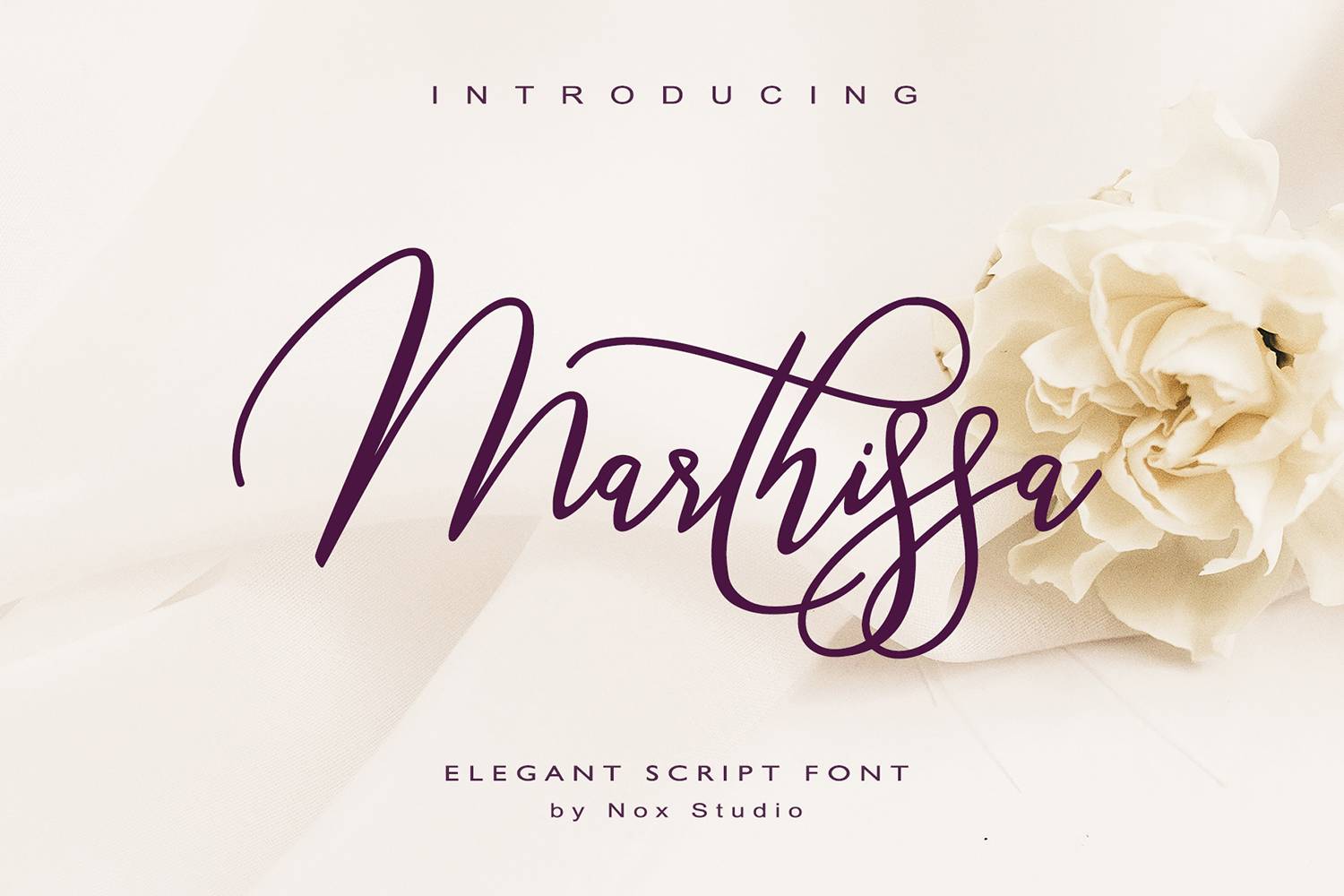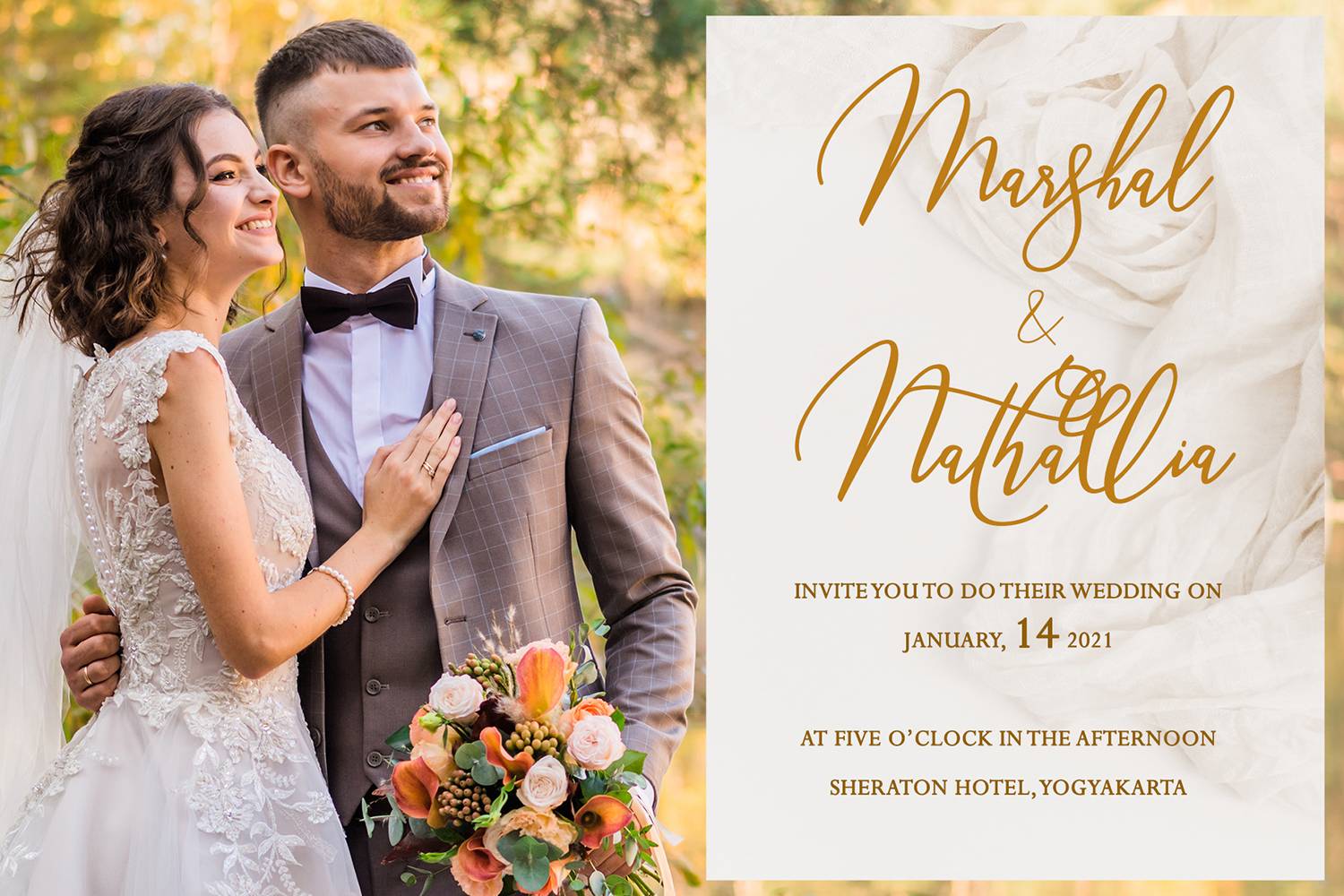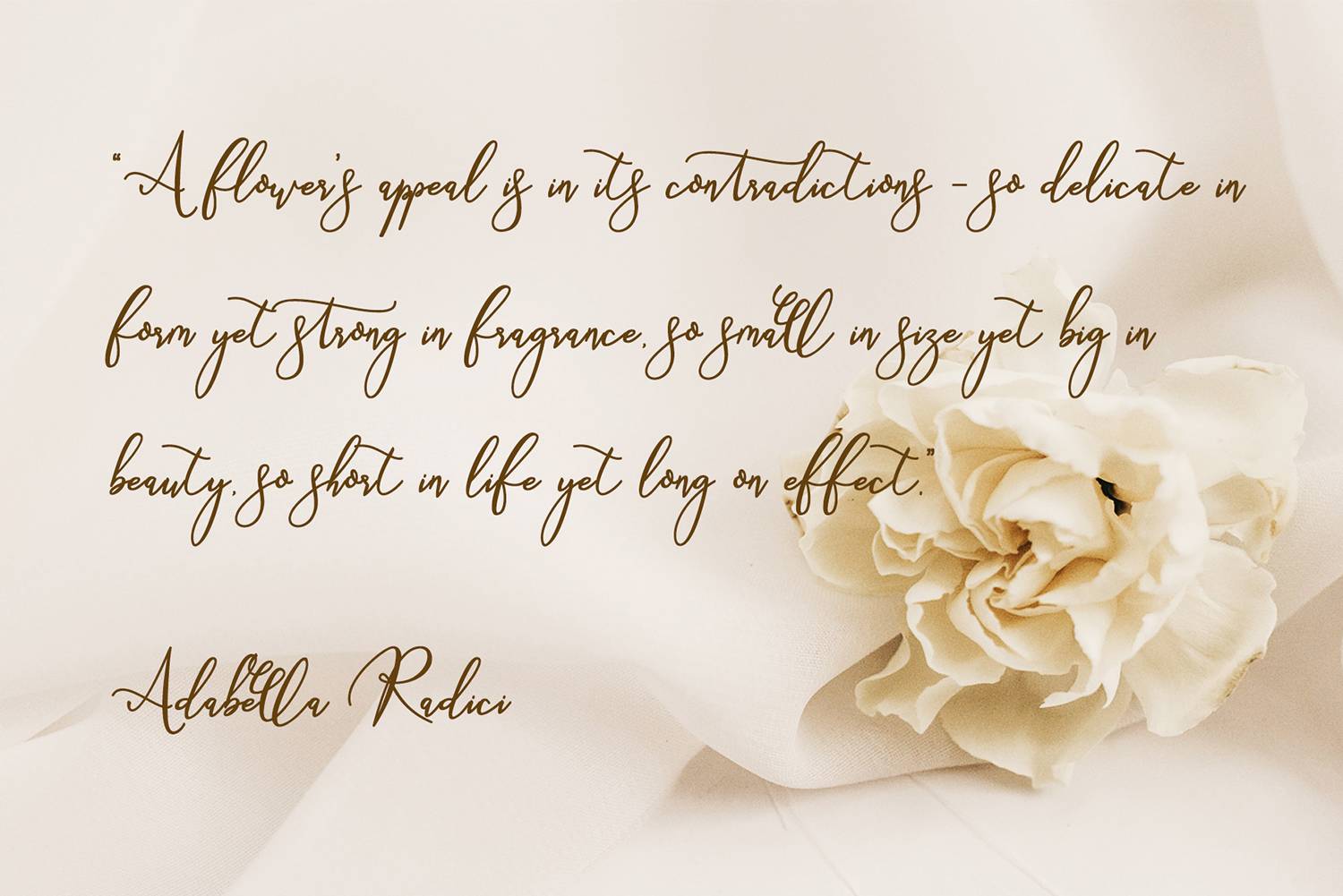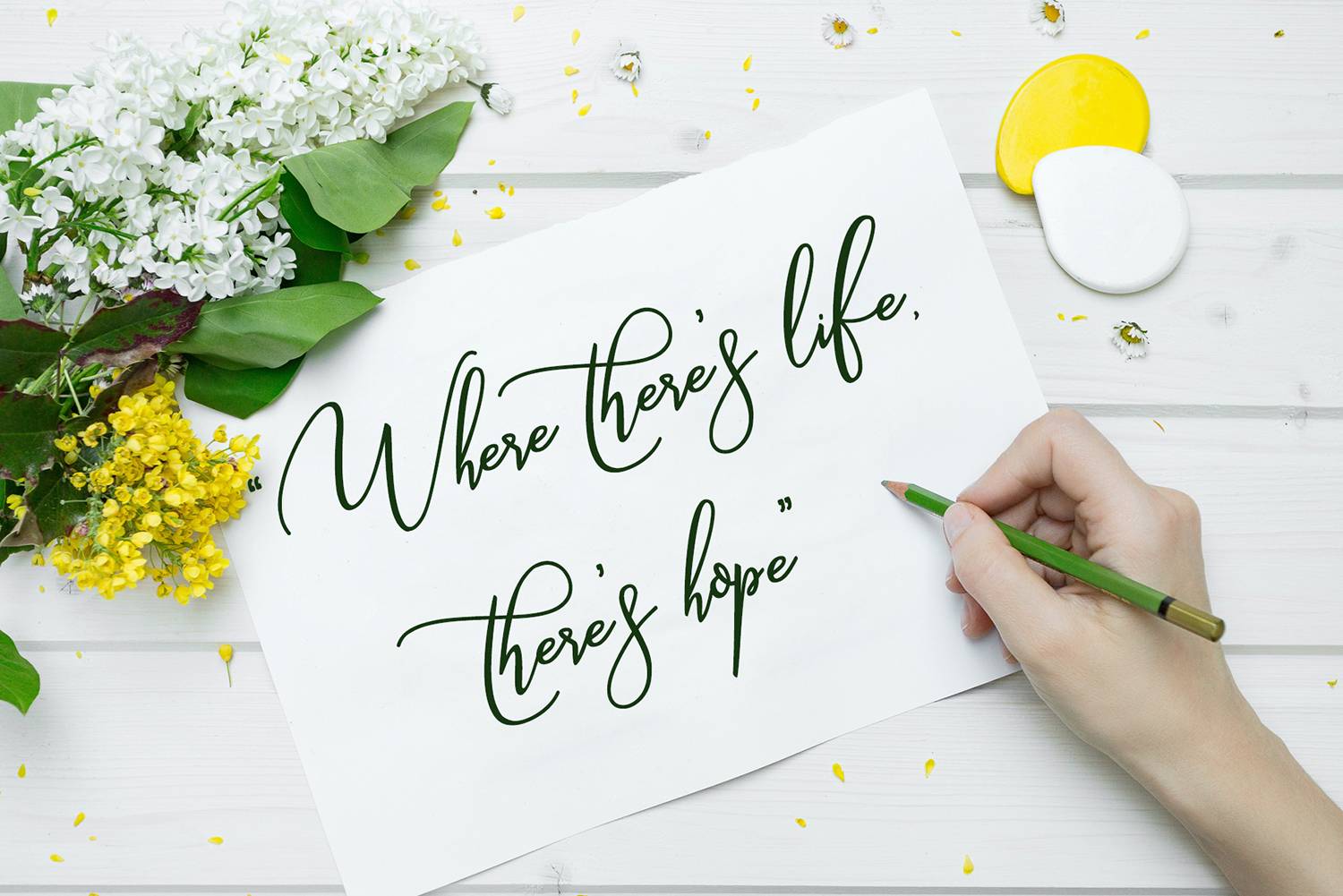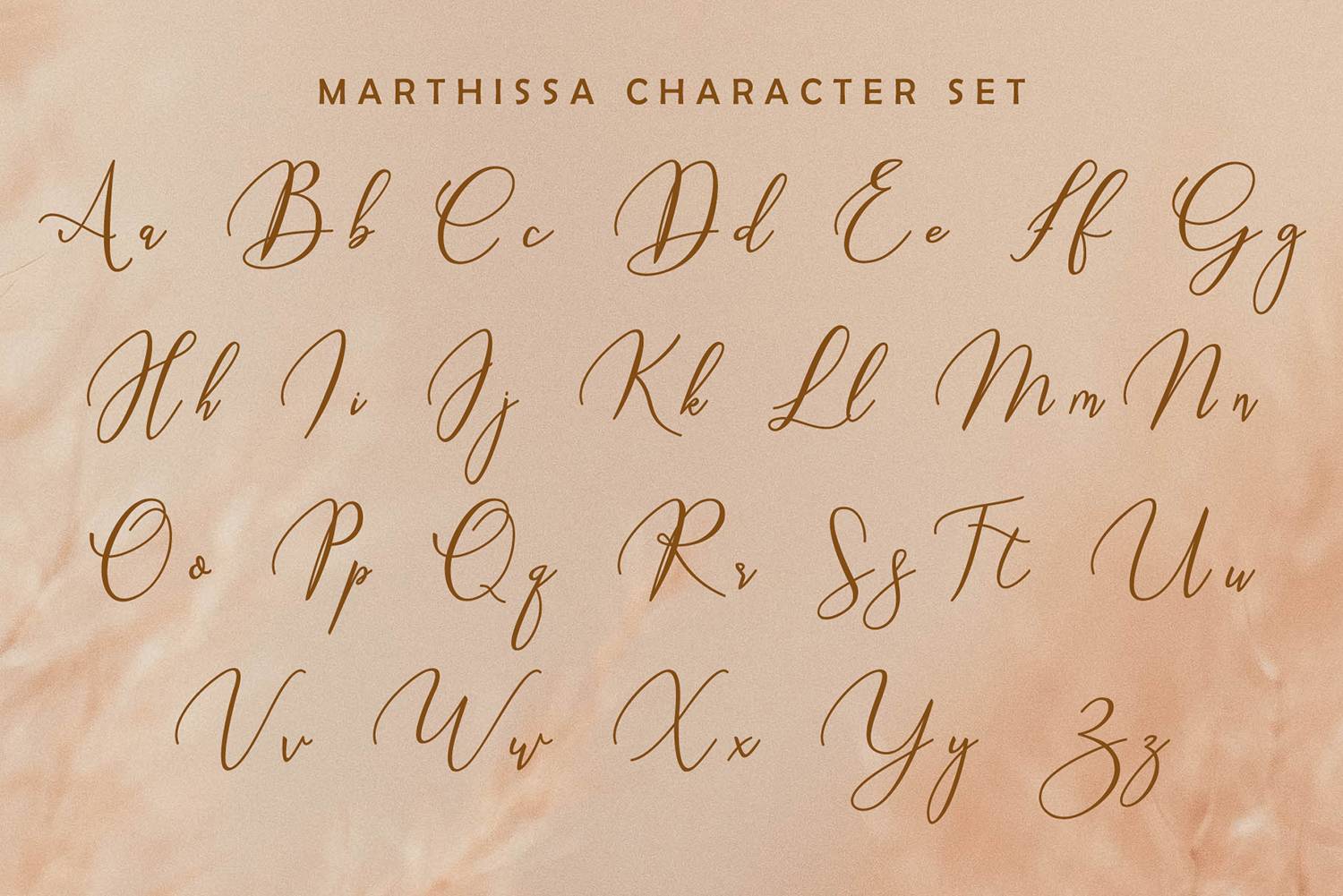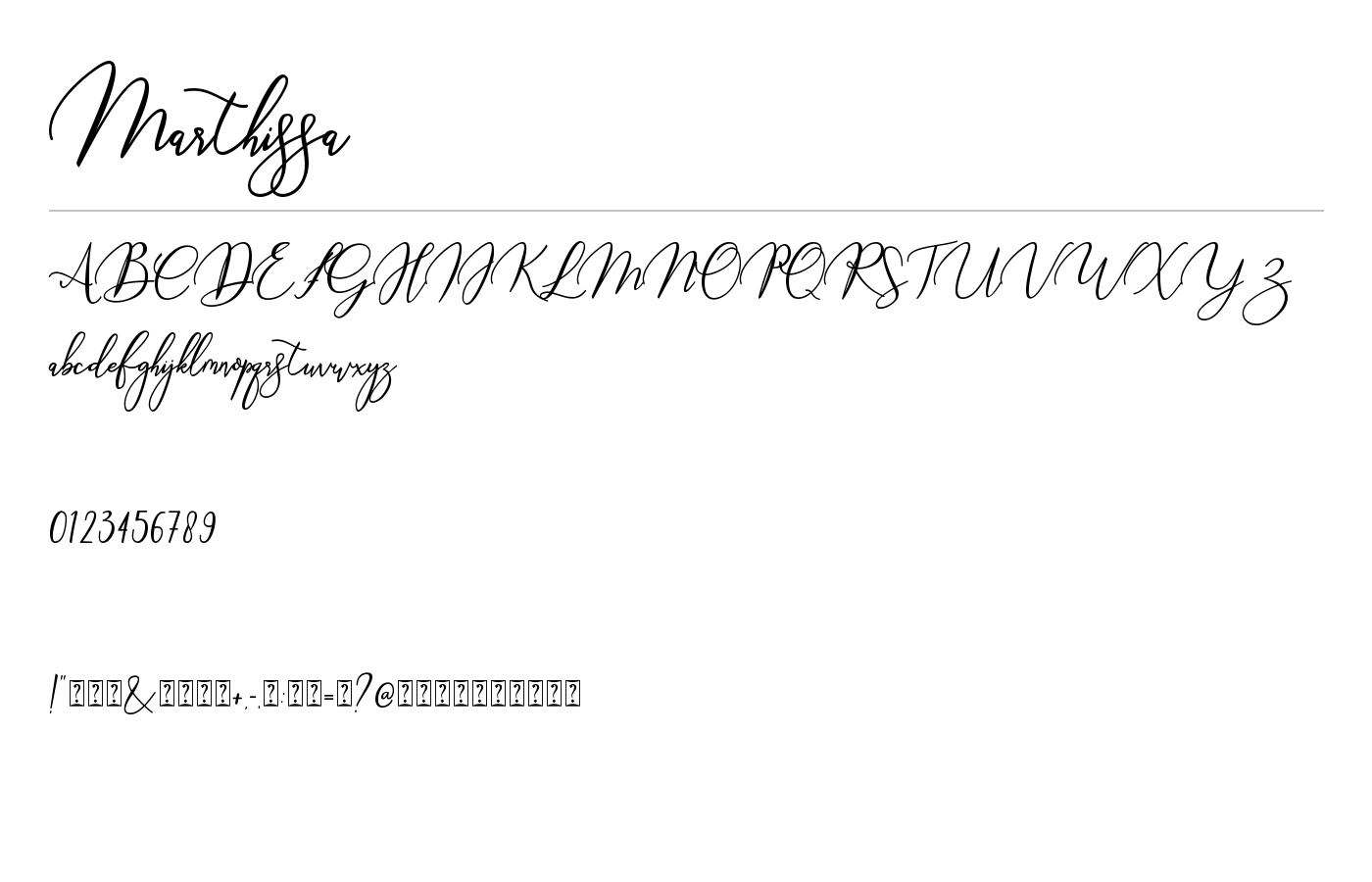
Marthissa is an elegant script font characterized by flowing, handwritten letterforms with a delicate, high-contrast stroke style that exudes sophistication and charm. Its slender, tall characters with graceful loops make it ideal for luxury branding, wedding invitations, and refined editorial projects where a touch of personal elegance and artistic flair is desired. This font shines best in display settings, such as logos and headlines, where its intricate details can be fully appreciated.
Marthissa Font
About Marthissa Font
| Font family | Marthissa Font |
| Designer | Nox Studio 2021 |